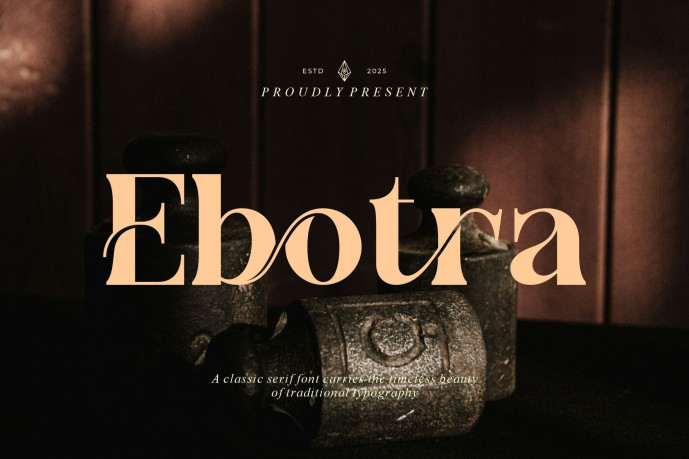
Ebotra Font
Designer: ermediastudio
Ebotra Font is a modern and elegant typeface for all brand and logo designs. This stylish serif font has a beautiful character. It’s suitable for invitation card templates, cool logos, movie titles, film names, business cards, book titles, brand names, and various other designs. Ebotra Serif is a flowing serif font that exudes sophistication and a sense of immediacy. Its elegant ligatures make it the perfect partner for any project.